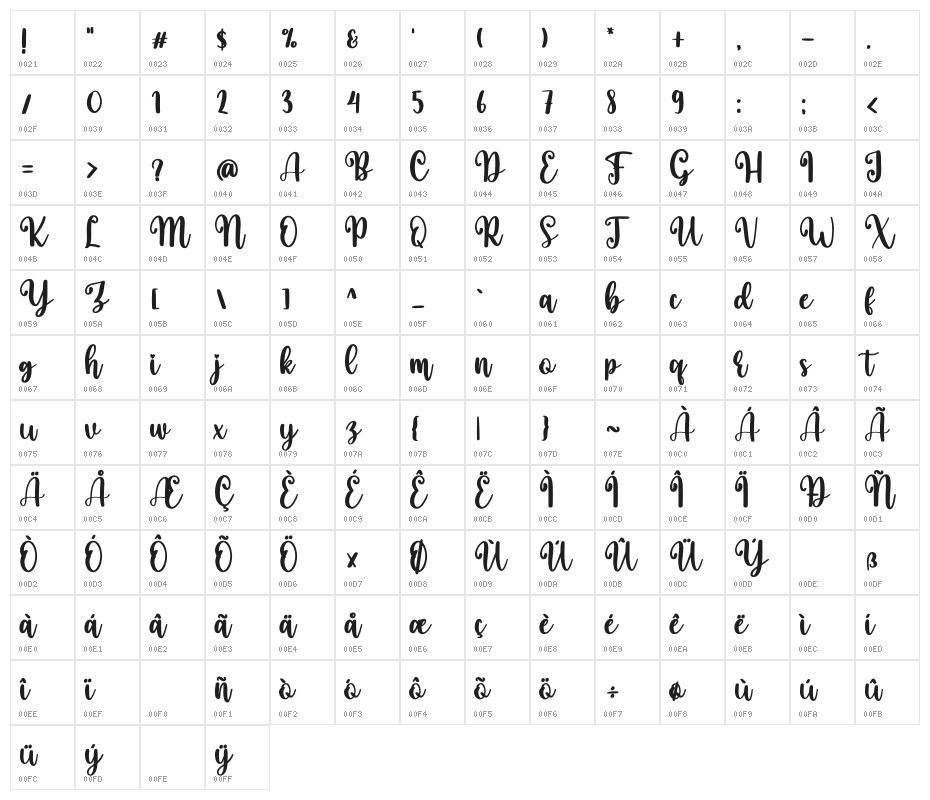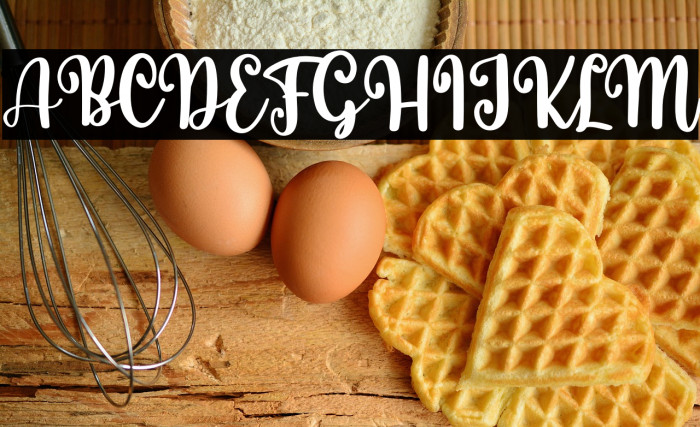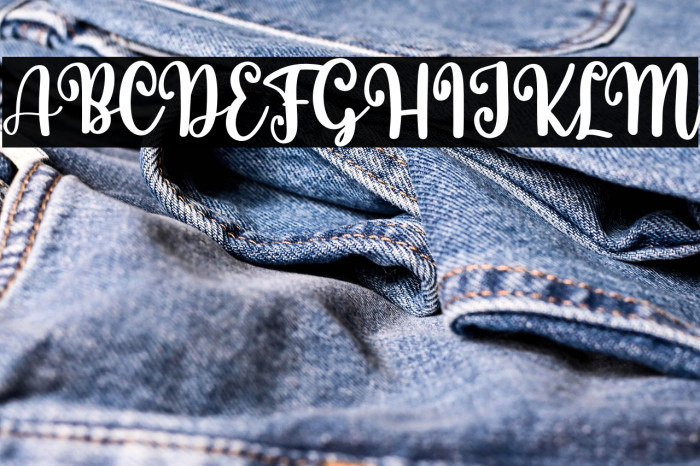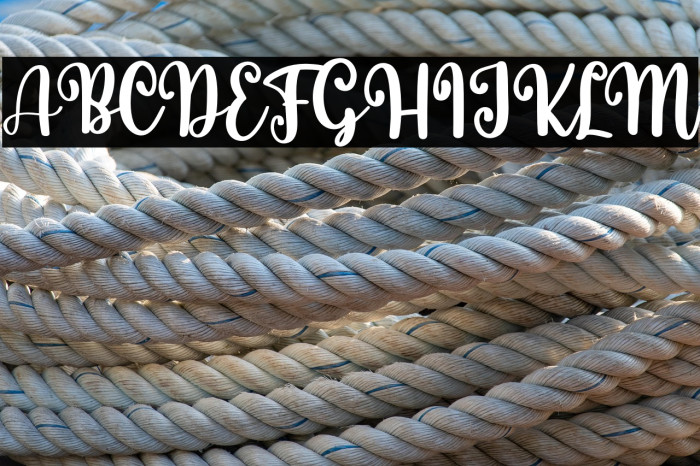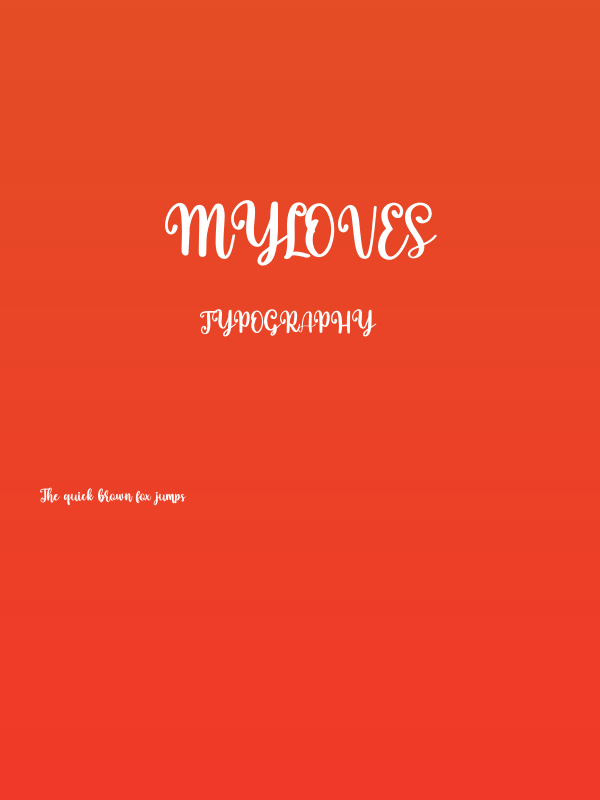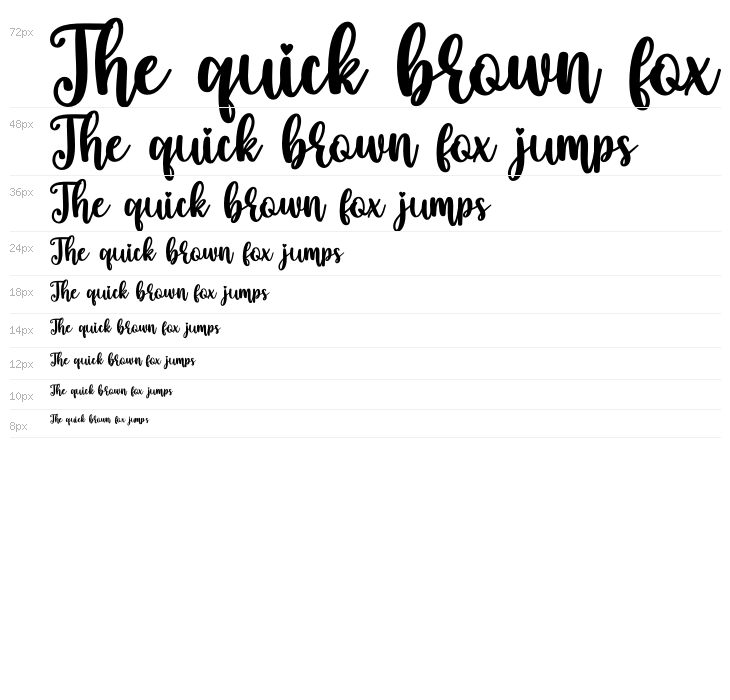
myloves Font
myloves Description
This font features a playful and expressive script style with a handwritten feel. The uppercase letters are elegantly curved with a consistent stroke weight, while the lowercase letters exhibit a charming flow with occasional loops and swashes. The numerals are bold and slightly whimsical, complementing the overall style. Special characters maintain the same playful aesthetic, making this font ideal for creative projects. The font's design is both modern and decorative, suitable for adding a personal touch to any text.